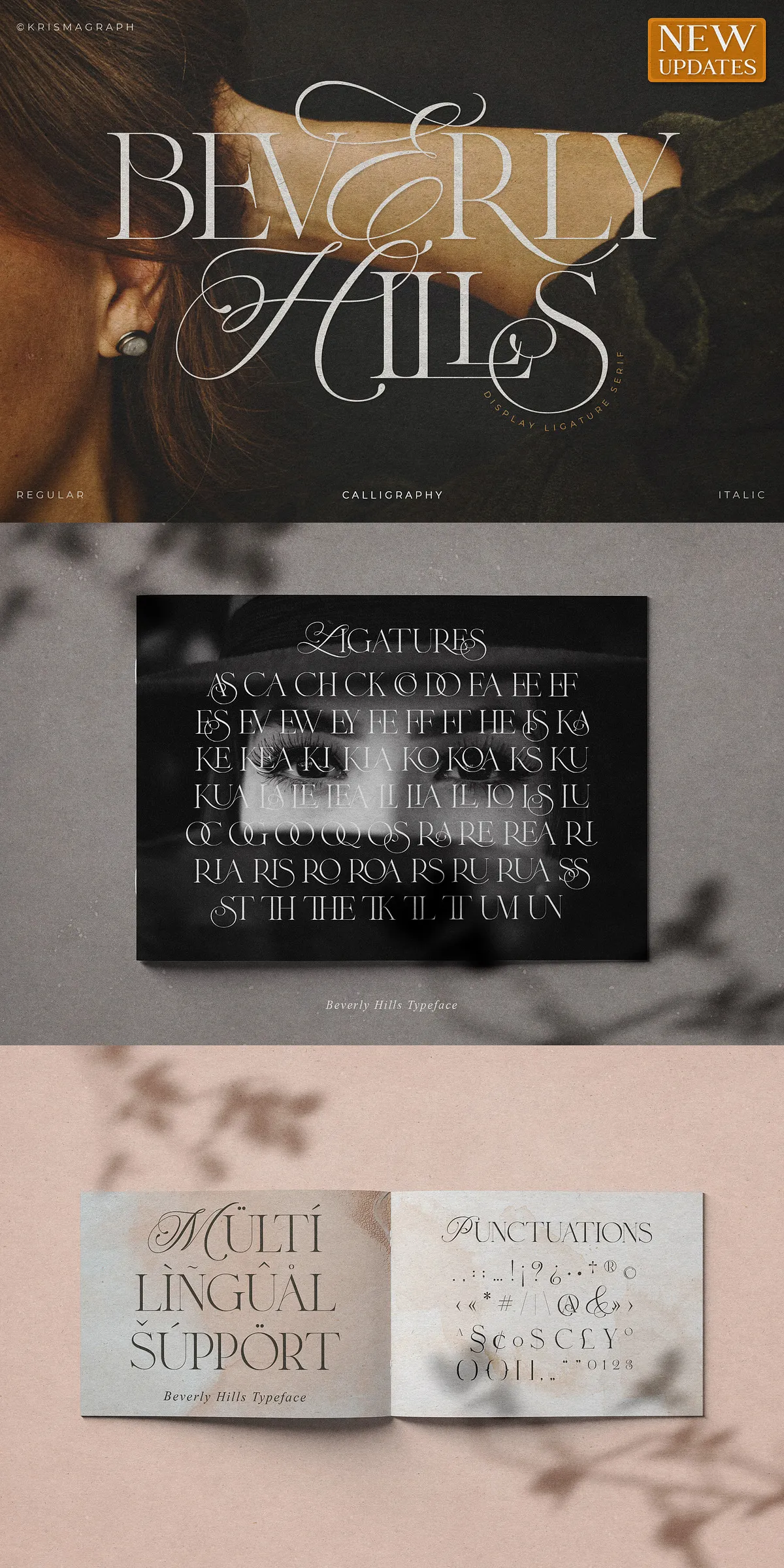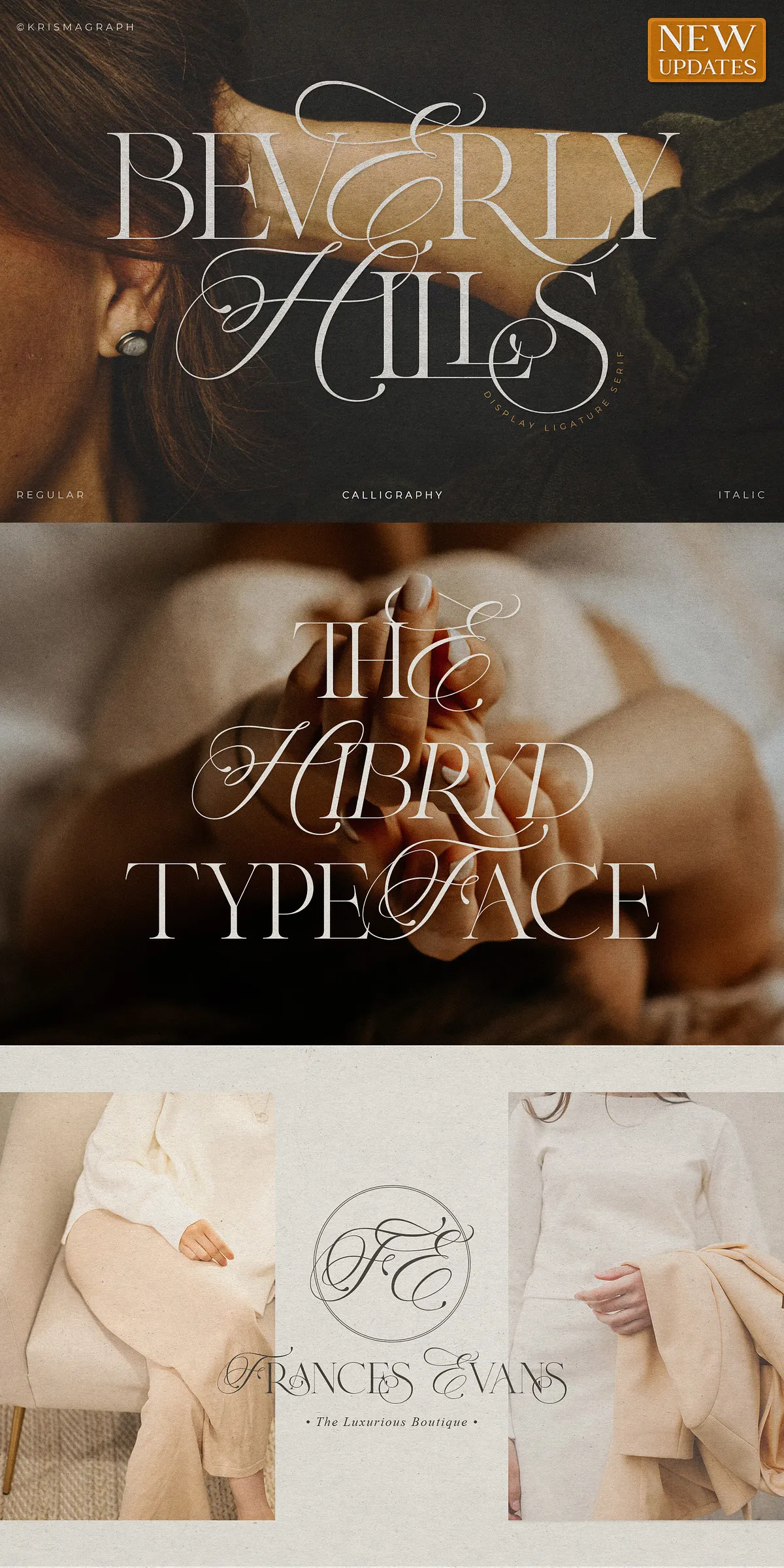
Step into a world where timeless artistry meets contemporary boldness. Introducing Beverly Hills Calligraphy Font—a stunning fusion of classic calligraphic grace and sleek modern serif structure. This isn’t just a typeface; it’s a statement piece designed to transform your projects into works of visual poetry. Whether you’re crafting a luxury brand identity or a vintage-inspired mood board, Beverly Hills delivers sophistication, charm, and undeniable character with every letter.
56 Unique Ligatures That Tell a Story
What sets Beverly Hills apart isn’t just its beauty—it’s its depth. With 56 hand-crafted ligatures, this font empowers you to create fluid, expressive text that feels hand-drawn and artistically intentional. From elegant word joins to dramatic flourishes, these ligatures turn generic text into narrative-driven design. The result? Text that doesn’t just communicate—it captivates.
Use them in headlines, taglines, quotes, or logotypes to add a touch of luxury and individuality. Each ligature is carefully designed to maintain readability while amplifying style—ideal for high-impact creative work where uniqueness is non-negotiable.
Three Distinct Versions for Every Creative Need
Beverly Hills comes in three powerful variations to give you maximum creative control:
- Regular: The standard version—refined, balanced, and instantly recognizable. Perfect for clean, classy headlines and branding elements.
- Italic: Adds a flowing, dynamic motion. Ideal for editorial layouts, elegant quotes, or vintage-style designs with a romantic tone.
- Calligraphy: The showstopper. This version brings the full expressive power of hand-drawn calligraphy to your screen. Use it for wedding invitations, high-end packaging, fashion branding, or any project that demands a premium aesthetic.
These versions aren’t just different styles—they’re different voices in your design toolkit.
Designed for Impact: From Branding to Wedding Design
Forget generic fonts that blend into the background. Beverly Hills is engineered for standout projects that demand attention and emotion. Here’s where it truly shines:
- Branding & Logotypes: Create memorable identities that exude elegance and exclusivity.
- Advertising & Campaigns: Turn billboards, flyers, and social media ads into visually compelling stories.
- Packaging & Label Design: Elevate product packaging with a look that feels premium and handcrafted.
- Wedding Branding & Invitations: Infuse your wedding design with romantic, timeless charm—perfect for save-the-dates, menus, and signage.
- Editorial Design & Mood Boards: Add a vintage-meets-modern aesthetic to magazines, blogs, and visual storytelling.
- Website Headers & Social Media Quotes: Create visually rich content that stops scrolls and sparks engagement.
Multilingual Support, Full Accessibility
Make Your Vision Unforgettable
Beverly Hills isn’t just a font. It’s a creative catalyst. It invites you to move beyond ordinary design and embrace artistry, emotion, and storytelling through typography.